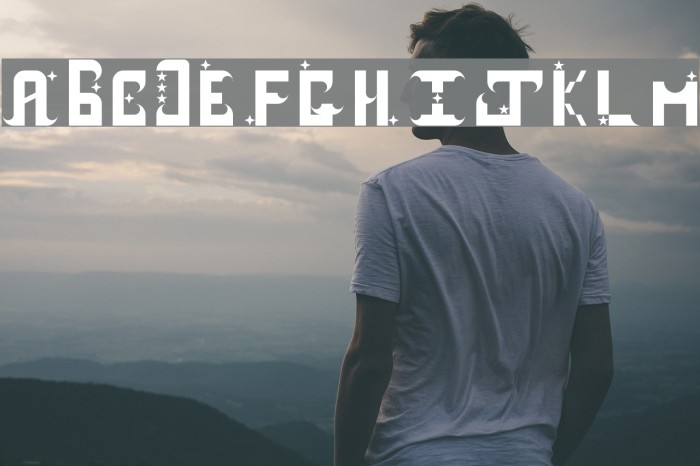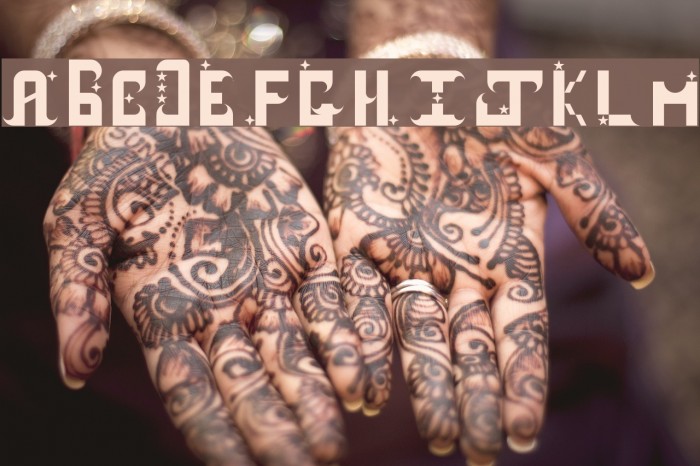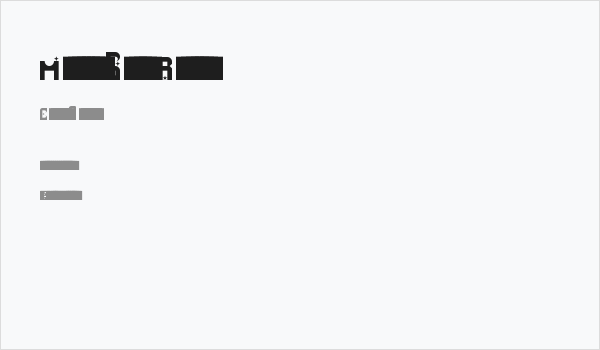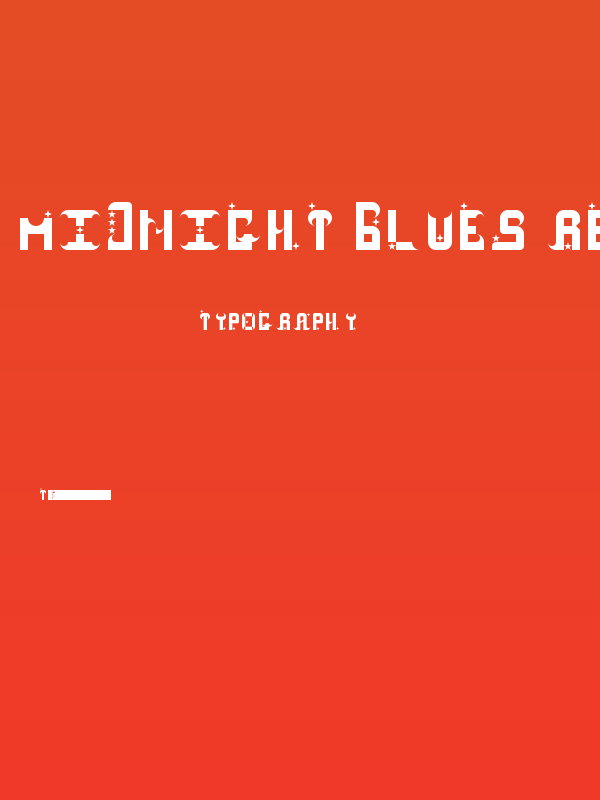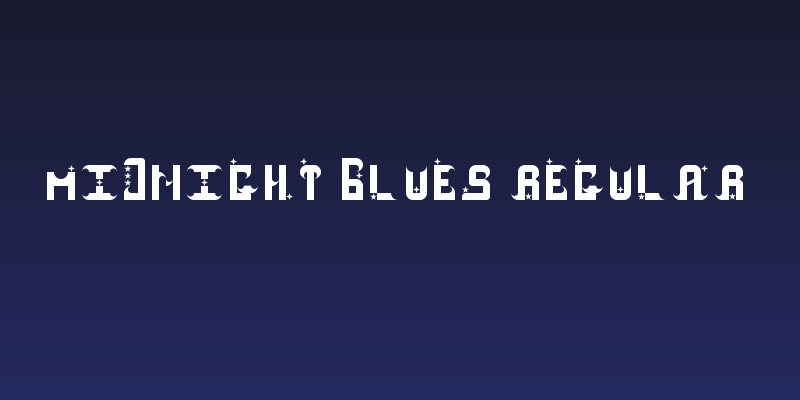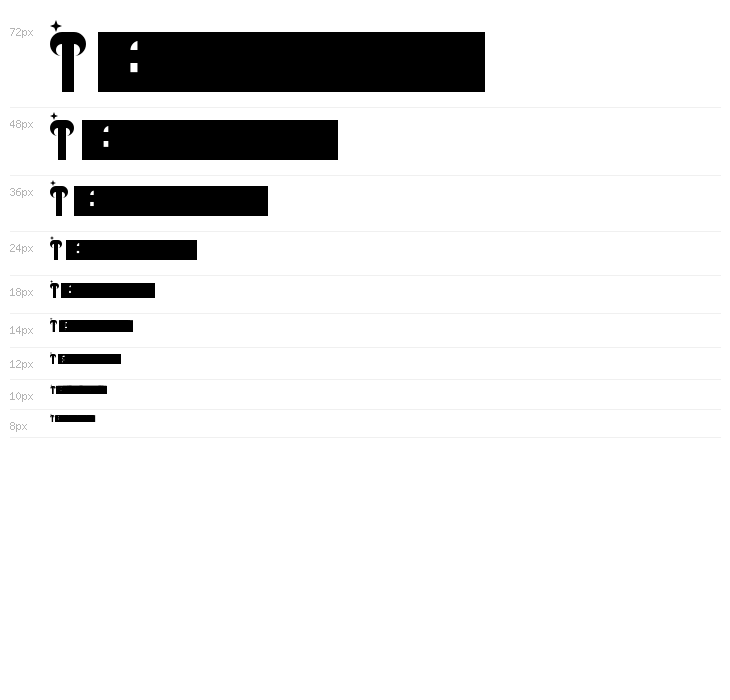
Midnight Blues Regular Font
Midnight Blues Regular Description
This font is a decorative and playful typeface characterized by its unique star and crescent embellishments integrated into each letter. The uppercase letters are bold and feature a mix of sharp and rounded edges, giving it a whimsical yet structured appearance. The absence of lowercase letters and numbers suggests a focus on display usage rather than body text. The special characters are creatively designed to match the overall theme, making it suitable for projects that require a touch of fantasy or a celestial theme.
| Proposed Projects | This font is perfect for projects such as event posters, book covers for fantasy novels, children's party invitations, or any design that requires a magical or night sky theme. |